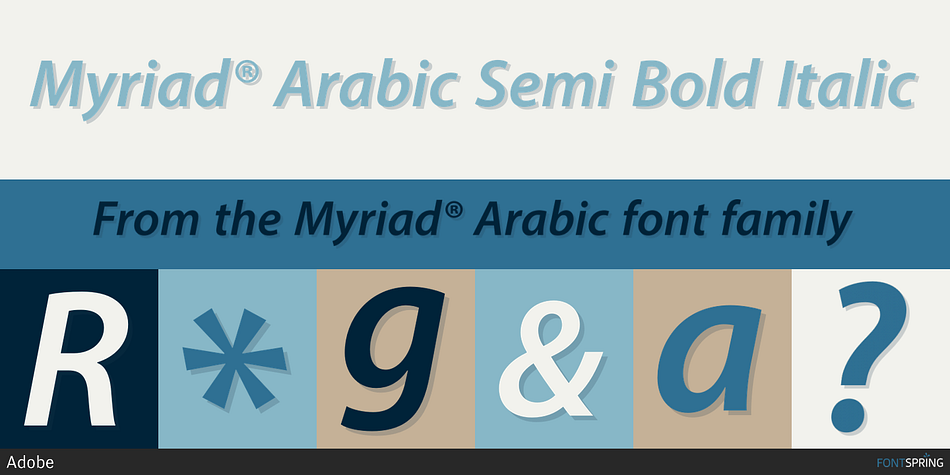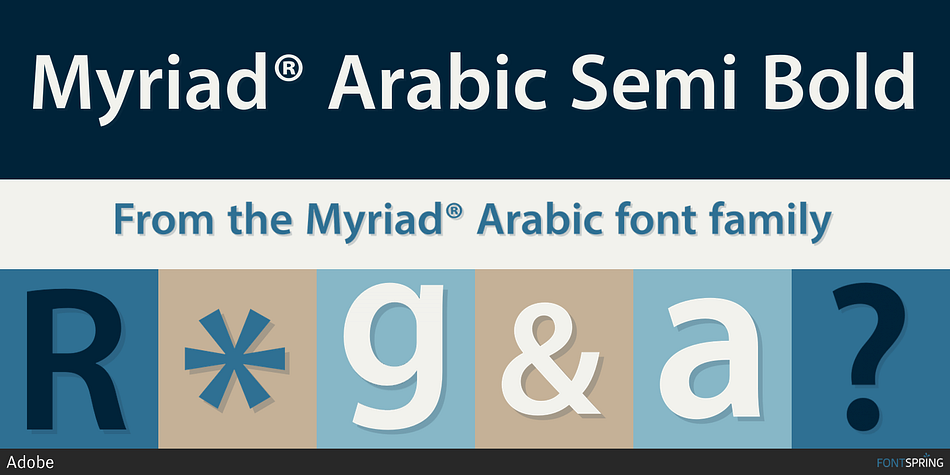
Myriad® Arabic
Myriad® Arabic is a sans serif font family. This typeface has ten styles and was published by Adobe.
Robert Slimbach designed Myriad Arabic as a companion to the Western scripts in the Myriad Pro family. While there have been a number of Arabic sans serif typefaces, few if any were designed to work well for longer blocks of text or for easy readability on screen. Myriad Arabic addresses that need by combining classic Naskh features and subtle echoes of calligraphic weight distribution with adjusted proportions to emphasize the letters, internal spaces and distinguishing features. The Arabic faces retain the Myriad family’s clean shapes and even spacing for a comfortable reading experience. The result is a contemporary design with a warm, traditional feel. At larger sizes Myriad Arabic’s subtle weight modulations become more clear, giving text a restrained elegance. The family includes Italic designs to accommodate Western-style emphasis when needed.